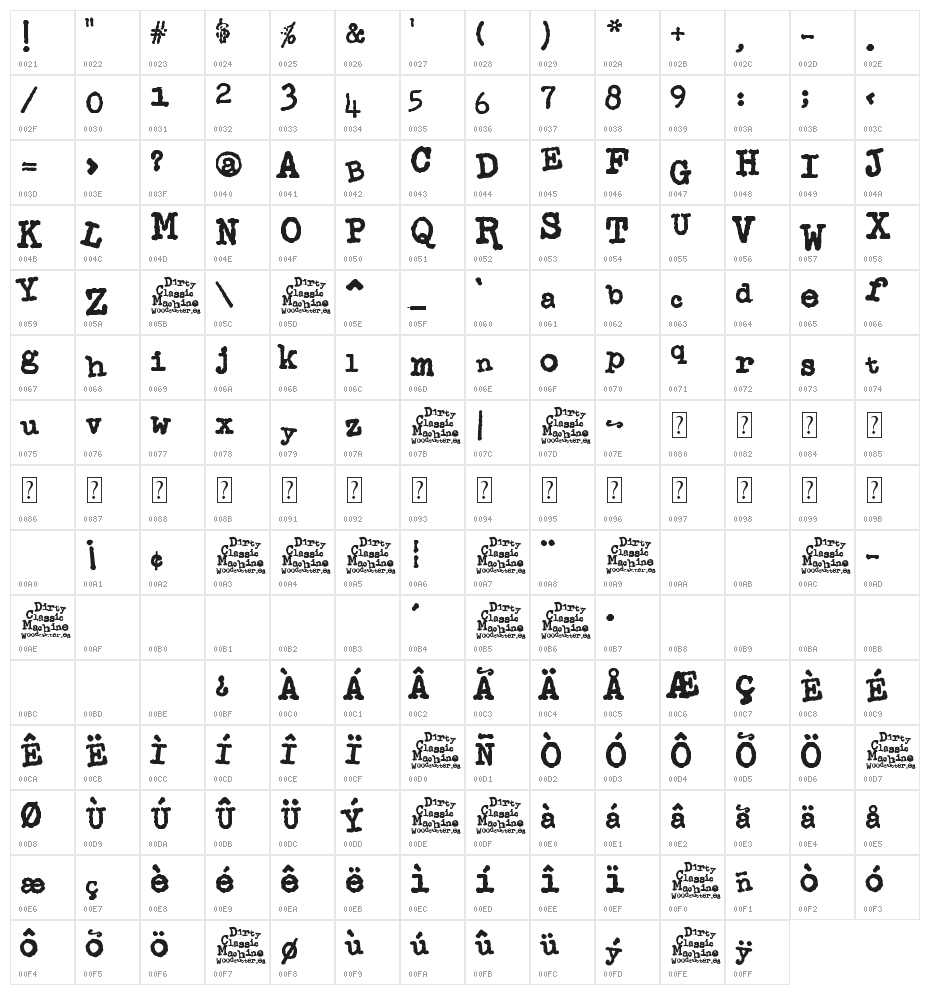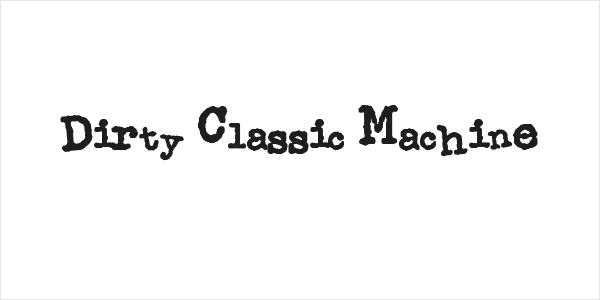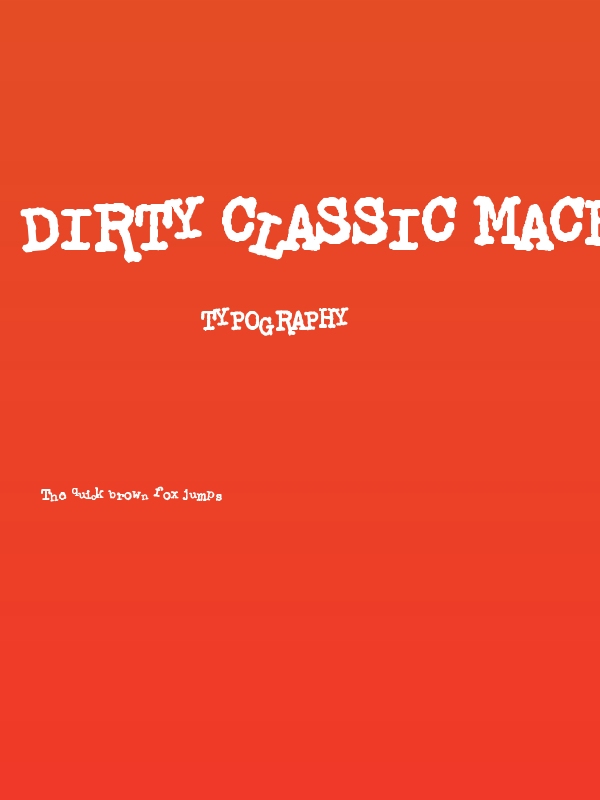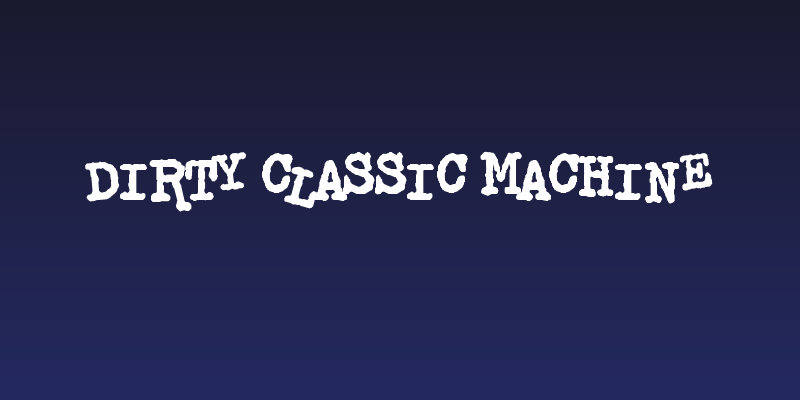
Dirty Classic Machine Font
Dirty Classic Machine Description
This font exudes a rugged, vintage charm with its distressed and uneven letterforms, reminiscent of old typewriter or printing press styles. The characters are bold and slightly irregular, giving them a hand-crafted appearance. The uppercase and lowercase letters maintain a consistent style, with thick strokes and a rough texture that adds to the overall worn look. Numbers and special characters follow the same aesthetic, making the font suitable for projects that require a nostalgic or industrial feel. Its unique character makes it stand out, perfect for designs that aim to capture an authentic, retro vibe.
| Proposed Projects | Ideal for vintage posters, retro-themed branding, industrial design projects, and any creative work that requires a nostalgic touch. |